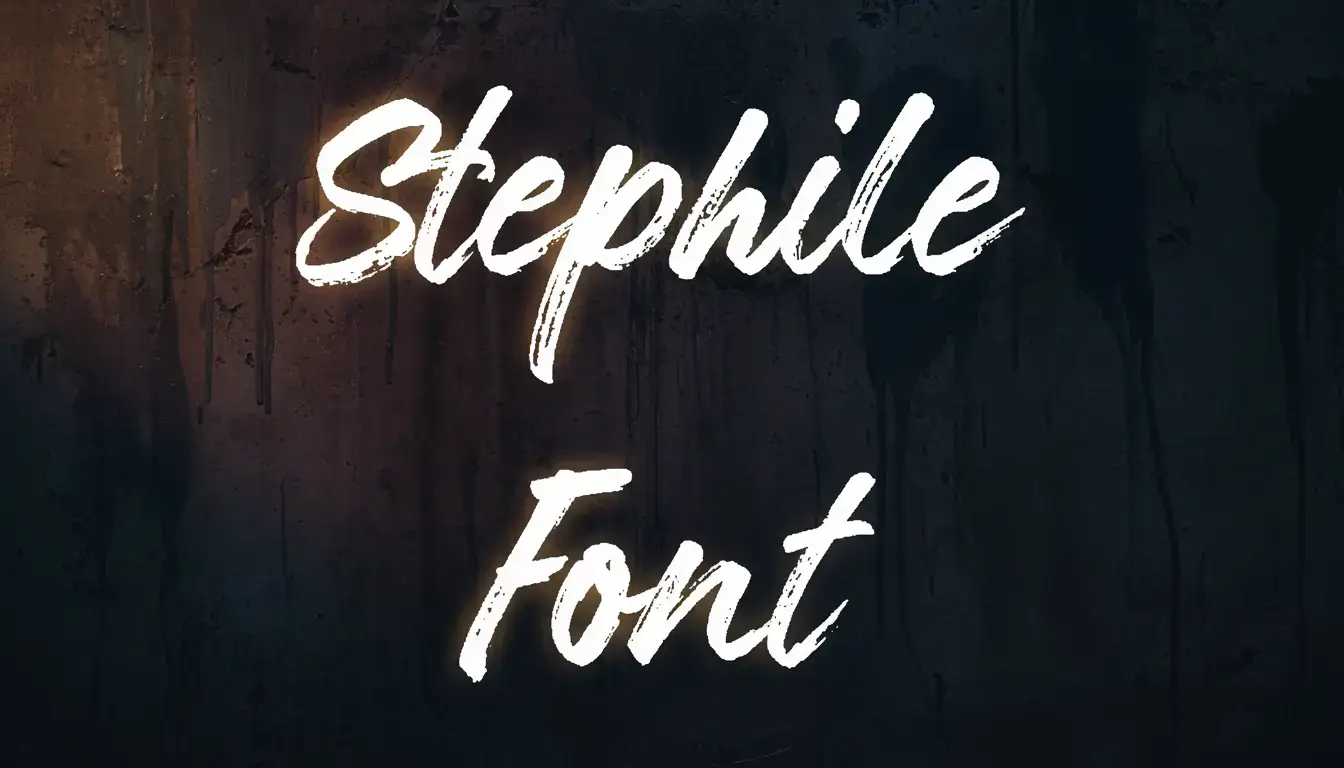
Stephile Font
Stephile
Stephile is a script font made by Andrie Nugrie. Its flowing, pen-made letters give names and short phrases a personal, polished look. You can download it for free and test it with your own words in the preview above.
What You Can Type With Stephile
Stephile covers the full alphabet in upper and lowercase, plus all ten numbers, so you can set names, dates and prices without switching fonts. Everyday marks like &, !, ? and @ are there too. It has 1 accented letters, but not the full set for Spanish or French, so test any non-English words first.
Where Stephile Works Best
Stephile is a natural fit for wedding invitations, logos and signature-style headings. Script fonts read best in short bursts, so keep it to names, titles and one-line quotes. Skip all caps: script capitals are drawn to start a word, not to fill one.
Does Stephile support accented letters?
Partly. Stephile has 1 accented letters, but not the complete set for Spanish, French or German. Type your words in the preview above to check before you use it.